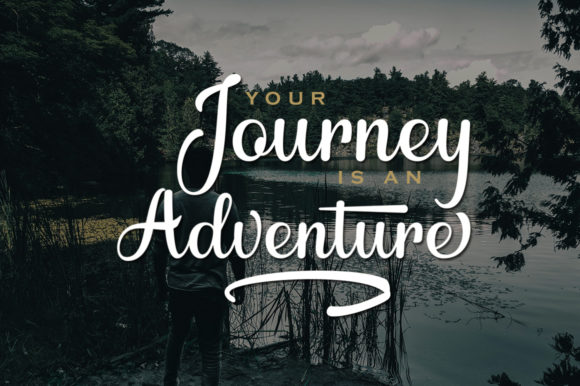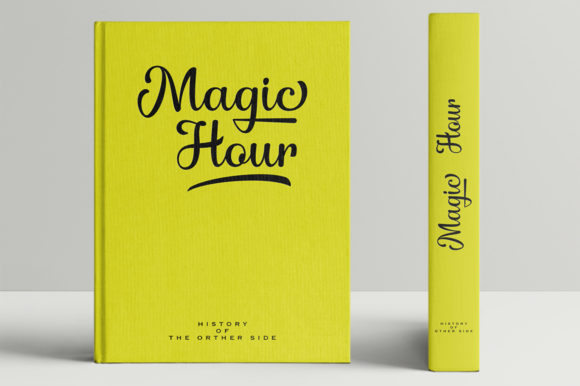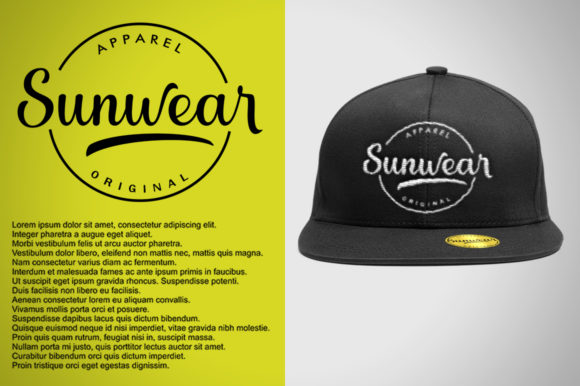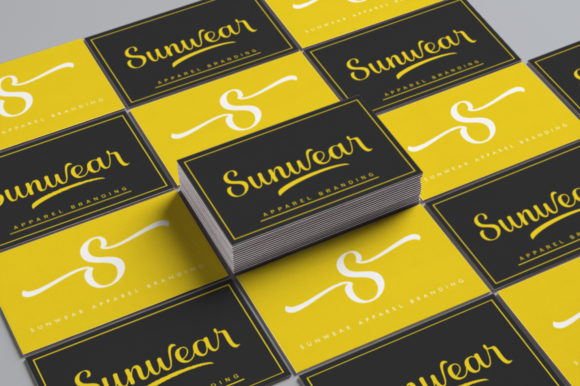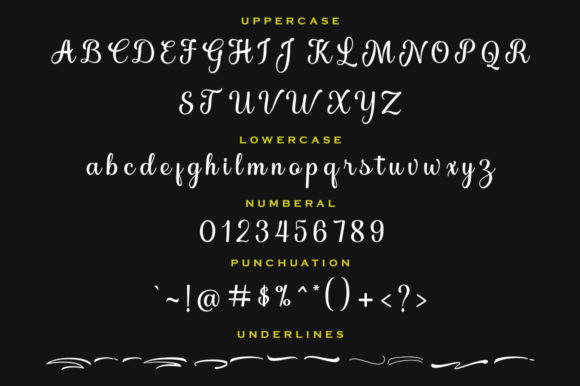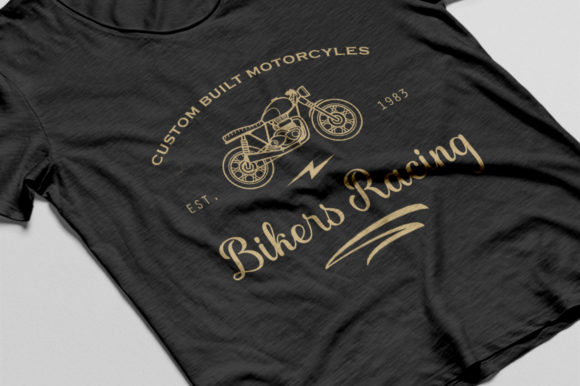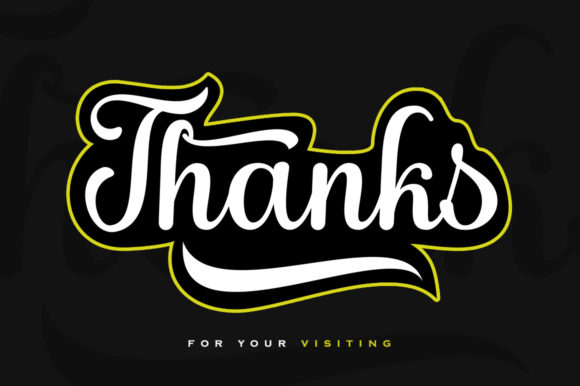
Brilliance Font
About Brilliance Font
Brilliance is a cursive handwritten font that is readable, bold and stylish. It is defined by smooth curves and is perfect for fashion branding or editorial designs. Add it confidently to your projects, and you will love the results.